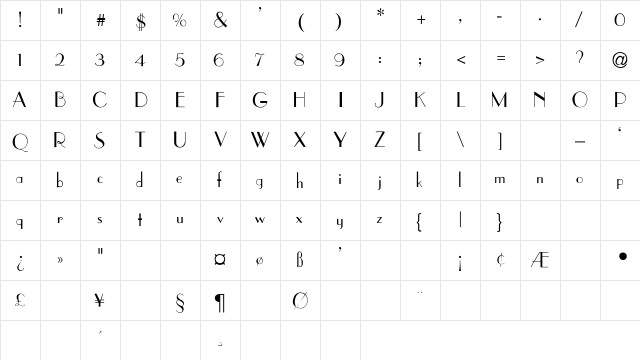
Parisian-Thin Regular Free Font
Parisian-Thin Regular
Parisian-Thin Family
Parisian-Thin Regular
Design Context for Parisian-Thin
Parisian-Thin is a composed and adaptable typeface that performs quietly and consistently across a wide range of design contexts. Its slender proportions lend an understated elegance to any composition.